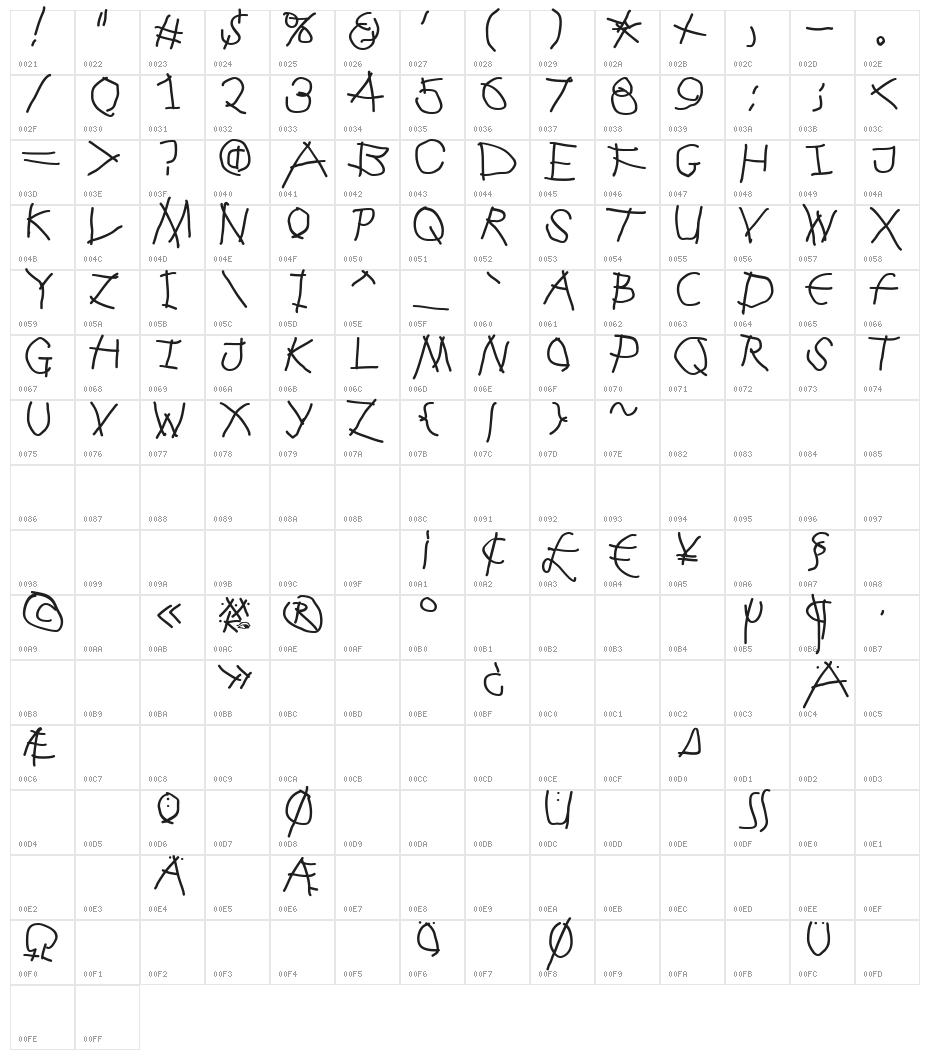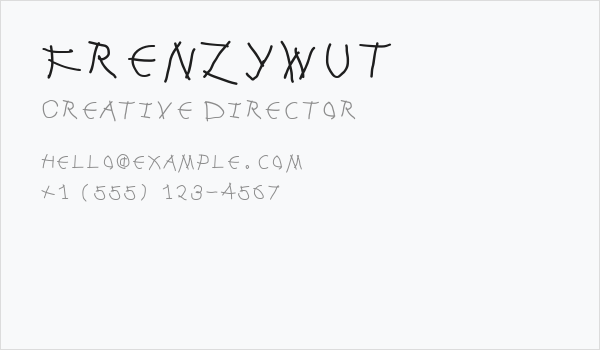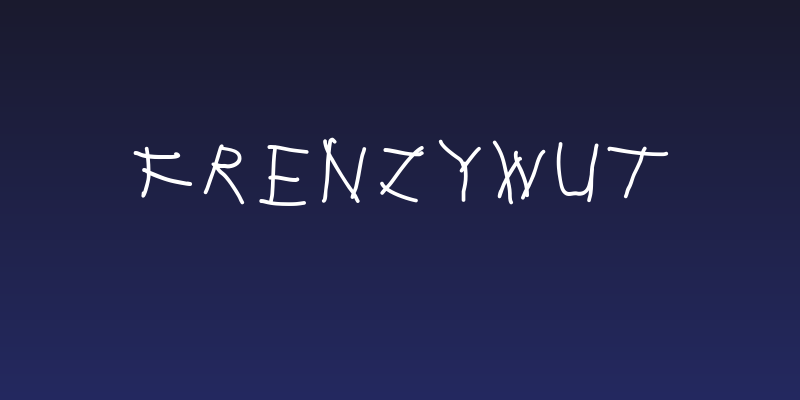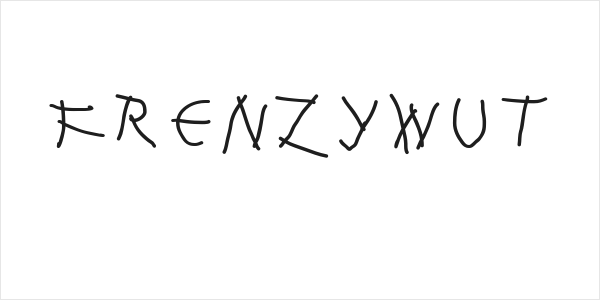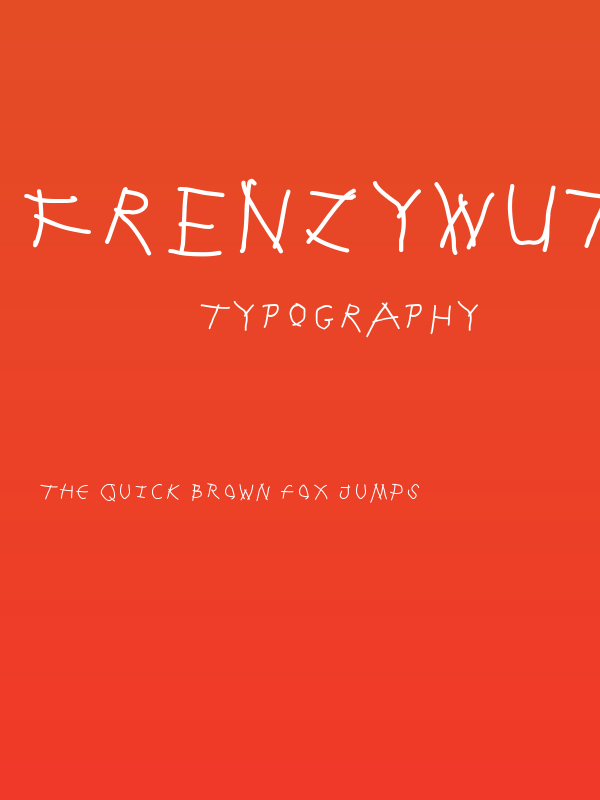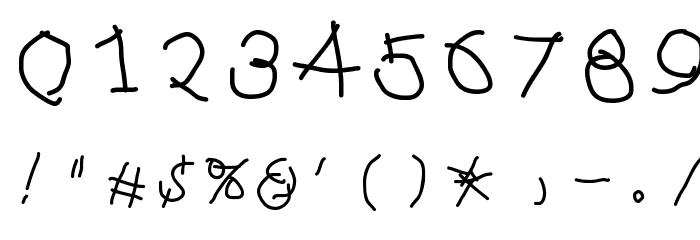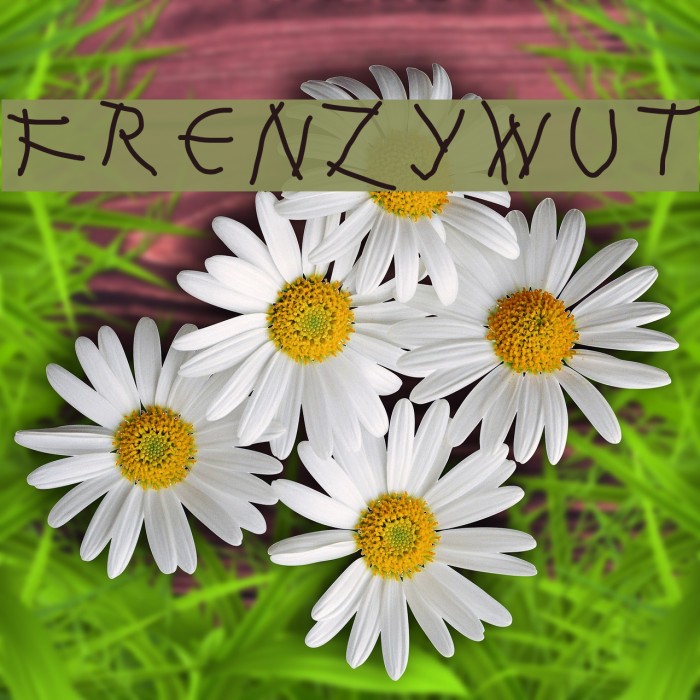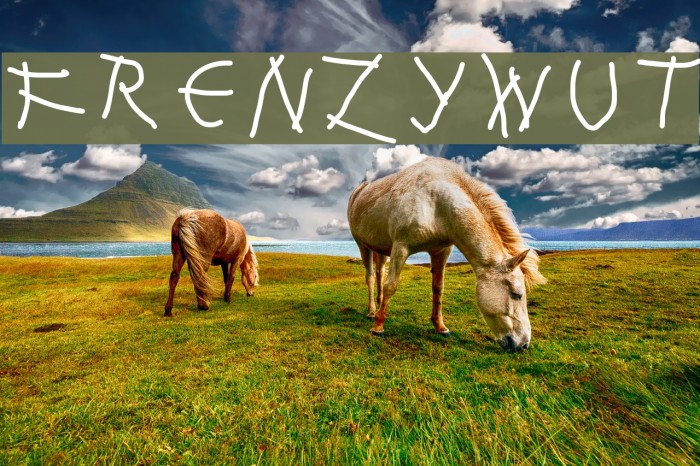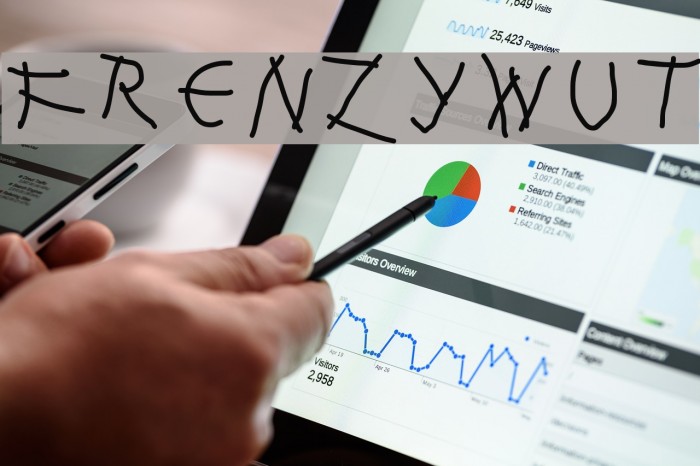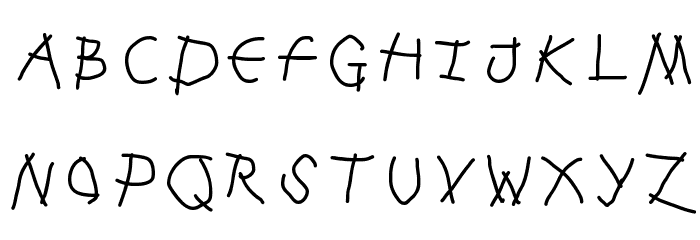
FrenzyWut Font
FrenzyWut Description
This font features a playful and energetic style, characterized by its irregular and hand-drawn appearance. The letters have a whimsical, almost chaotic feel, with varying stroke thicknesses and uneven baselines that give it a dynamic and lively look. The uppercase and lowercase letters maintain a consistent style, with quirky angles and curves that add to its unique personality. The numerals and special characters follow the same playful design, making the font suitable for creative and informal projects. Its distinctiveness makes it stand out, capturing attention with its bold and expressive nature.
| Proposed Projects | Ideal for children's books, comic strips, playful branding, and creative posters. |